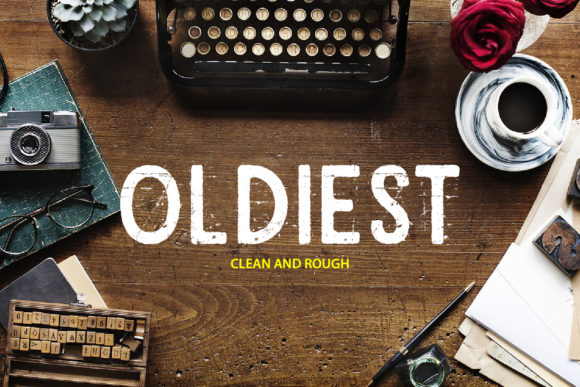
Dive into the realm of timeless elegance with Oldiest Font, a captivating display font born from the fusion of classic aesthetics and modern sensibilities. Crafted by the visionary da_only_aan, this masterpiece is a true testament to the enduring allure of vintage typography.
With its meticulously crafted characters, Oldiest Font exudes an air of sophistication and charm that is sure to leave a lasting impression. Its clean lines and carefully balanced proportions evoke a sense of nostalgia, while its subtle curves and playful details add a touch of whimsy.
Whether you're a seasoned designer or just starting your creative journey, Oldiest Font is the perfect companion for a wide range of projects. Its versatility shines through in logos, branding, posters, packaging, and social media graphics. Its ability to effortlessly elevate any design is truly remarkable.
Experience the transformative power of Oldiest Font today and unlock a world of creative possibilities. Let your designs speak volumes with its timeless beauty and captivating presence.